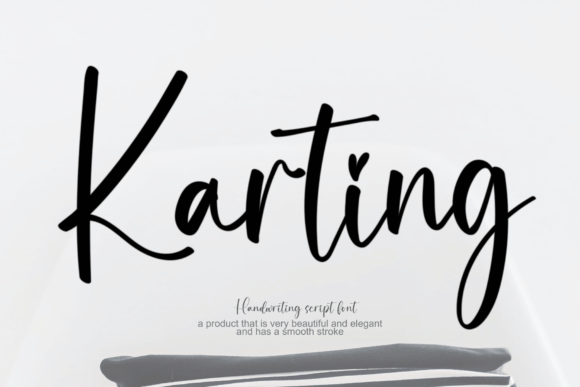
Journey through the world of enchantment with Karting Font, a whimsical handwritten treasure that exudes a touch of playfulness and warmth. With its charming strokes and inviting personality, Karting Font is a visual symphony designed to captivate hearts and spark creativity.
Karting Font, a creation of Creatype Designer, is a unique script font that effortlessly blends the allure of handwritten notes with the precision of digital artistry. Its meticulously crafted characters exude an intimate charm, making it an ideal choice for personalized designs, heartfelt messages, or the creation of captivating branding experiences.
Dive into the diverse repertoire of Karting Font and discover a treasure trove of design possibilities. Its versatile nature seamlessly adapts to a myriad of creative endeavors, from eye-catching social media graphics and enchanting invitations to captivating logos and authentic-looking handwritten notes. Unleash your imagination and let Karting Font transform your creative visions into unforgettable masterpieces.
Whether you're a seasoned graphic designer seeking to add a personal touch to your projects or an aspiring artist exploring the realm of digital calligraphy, Karting Font is your trusty companion. Its user-friendly nature makes it accessible to all, inviting you on an artistic odyssey where your creativity knows no bounds.